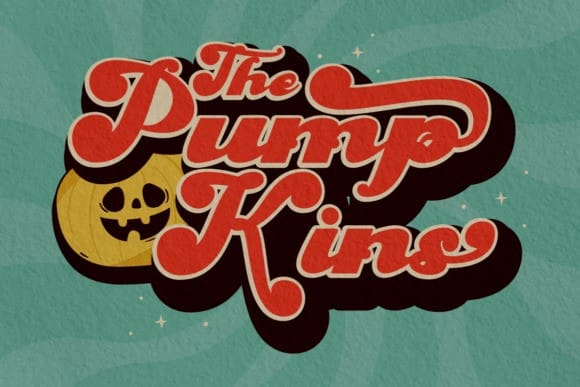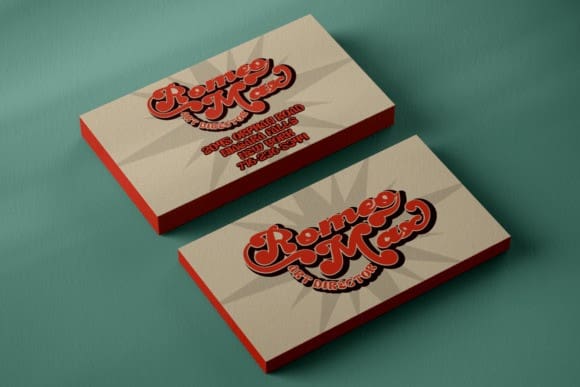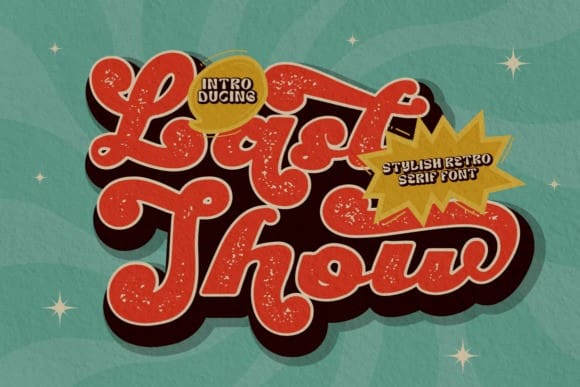
Last Show Font
Last Show Font is your ticket to a nostalgic journey back to the groovy retro era. This bold serif font showcases a stunning vintage script style with a touch of boldness, exuding an air of nostalgia and charisma.
The font offers two distinct variations, regular and rough, allowing you to choose the perfect style for your project. Additionally, you’ll find a variety of alternative characters that make it a versatile choice for diverse design purposes.
Whether you’re working on a logo, branding, invitations, packaging, posters, titles, business materials, greeting cards, magazines, or captivating headlines, Last Show captures the essence of vintage retro themes effortlessly.
With Last Show, you can infuse your designs with the timeless charm of a bygone era while embracing a bold, groovy spirit that makes your creations stand out.